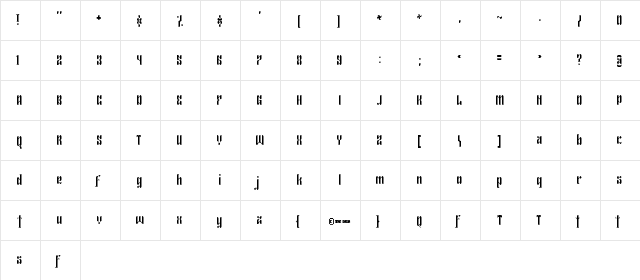
Exersia Regular
| Designer | Gene Buban |
Design Context for Exersia Typeface
Exersia is a composed and adaptable typeface that performs quietly and consistently across a wide range of design contexts.